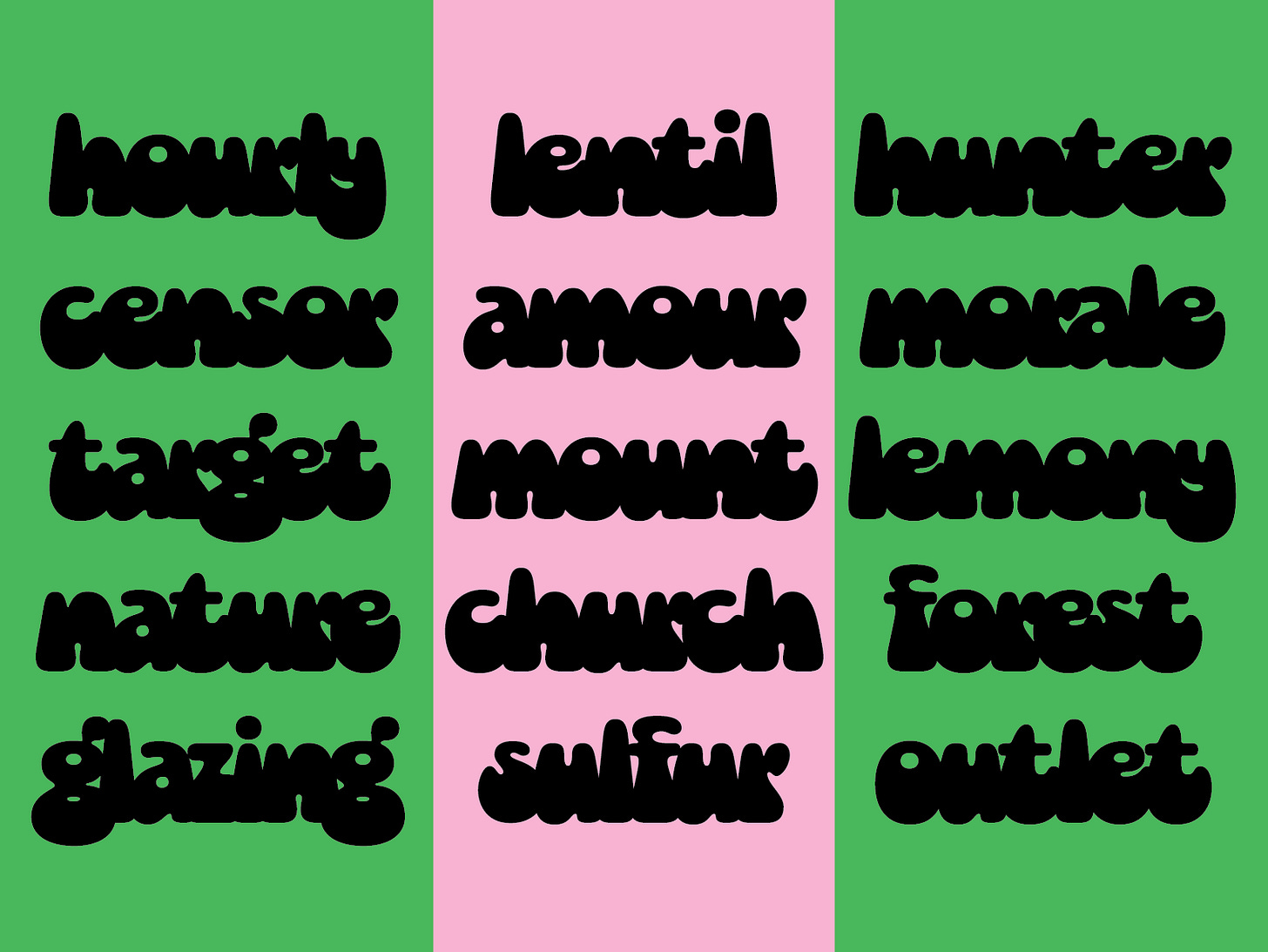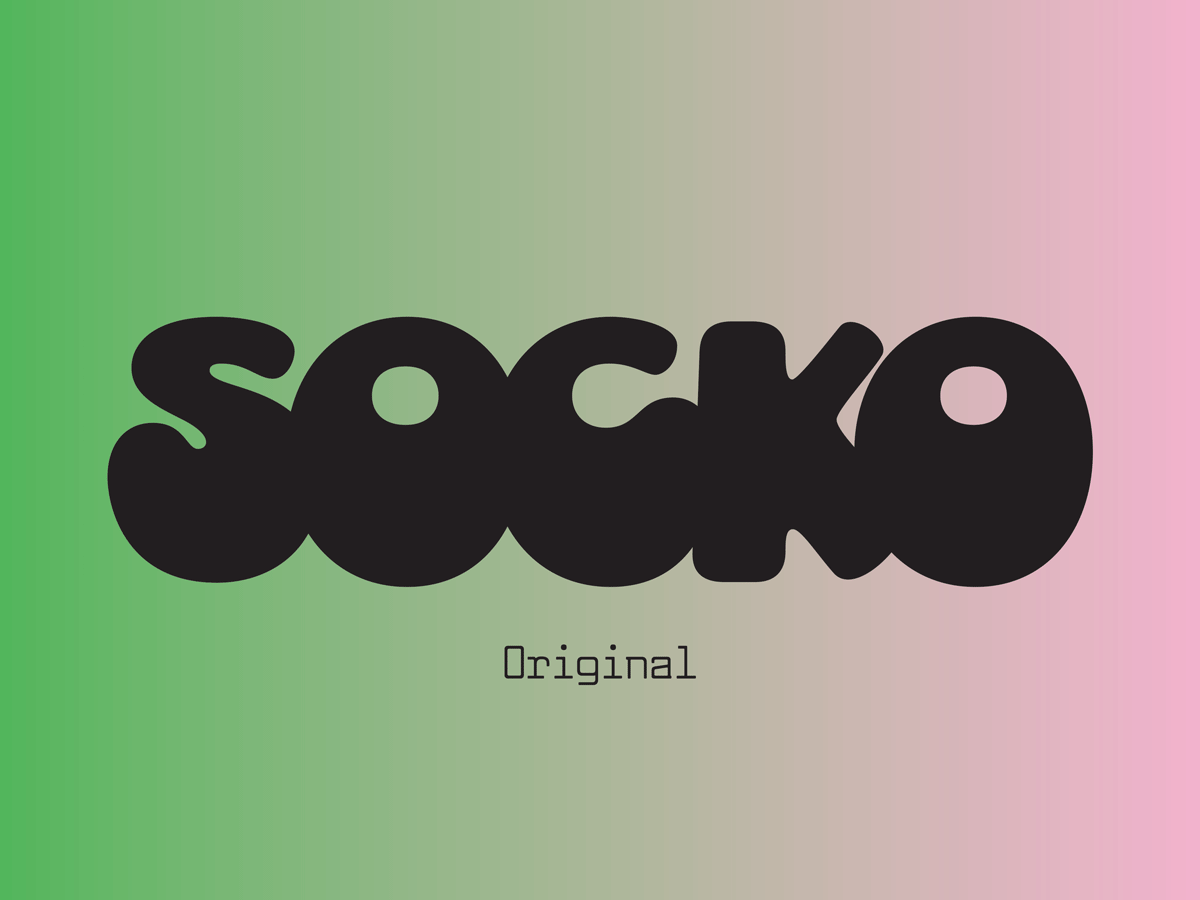
I have a fun update for you today — more Socko (if you can even believe it)! It turns out that *real* typefaces take a long time!!
Recently, I thought that Socko might need a lowercase so I gave it a whirl. It’s honestly really cute. I was half expecting it to feel forced because it’s such a weird style. But I’m into it!!
The plan is the flesh out the lowercase and add an italic style. The italic will likely feel scripty, but there won’t be deliberate connections like a traditional connected script has. I can picture Socko being used for a small fashion brand or some cute little ice cream shop branding.
In case you hadn’t suspected this, Socko will be released soon. It wasn’t the typeface I expected to release first but the universe works in mysterious ways!! Socko feels very on brand though so I’m definitely not mad about it. It’s genuinely fun to work on!
RaNdOm: I made a condensed version (aka I stretched it) of Pulp for our save the dates/wedding things and I think I like it more than the original?